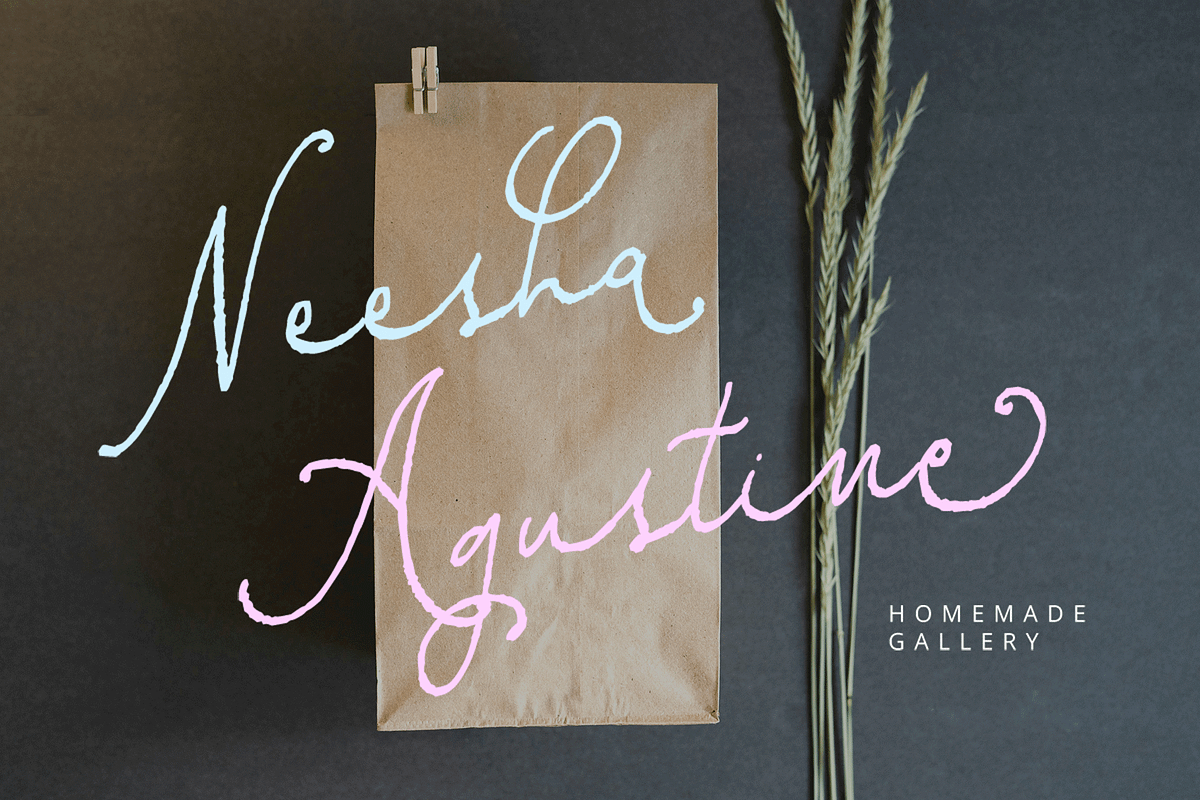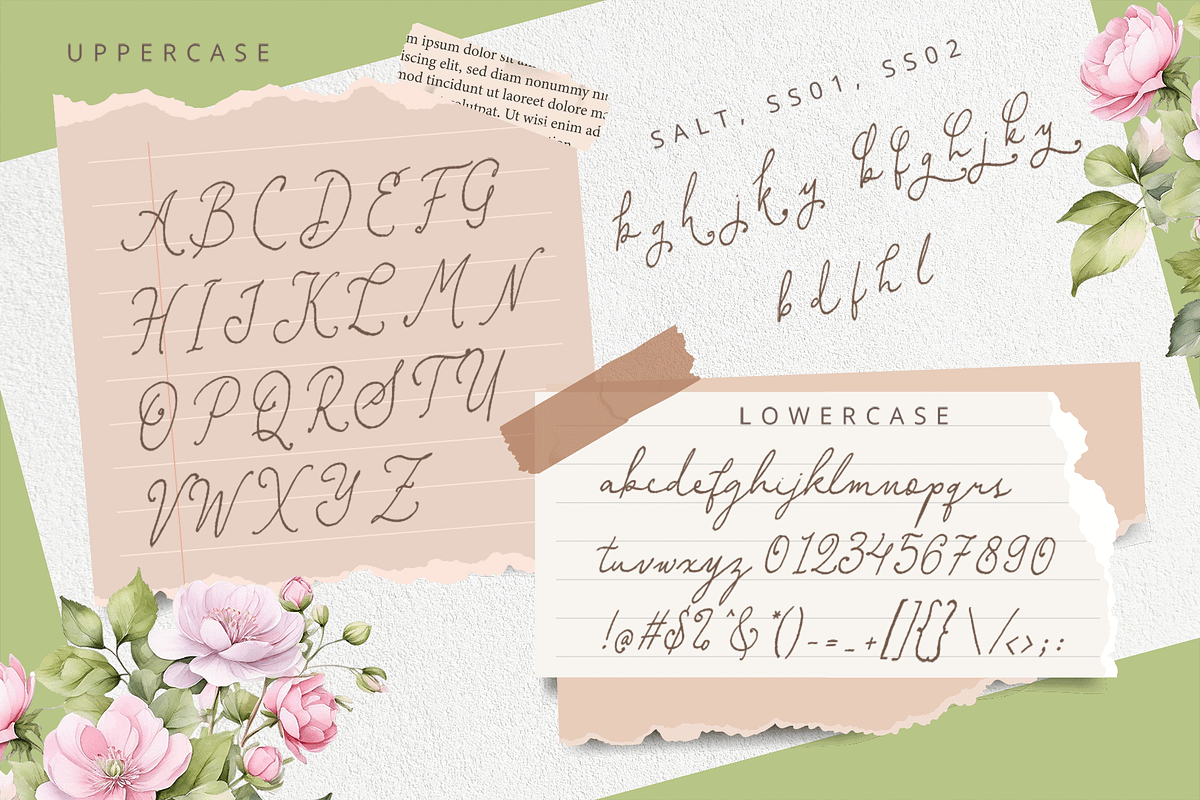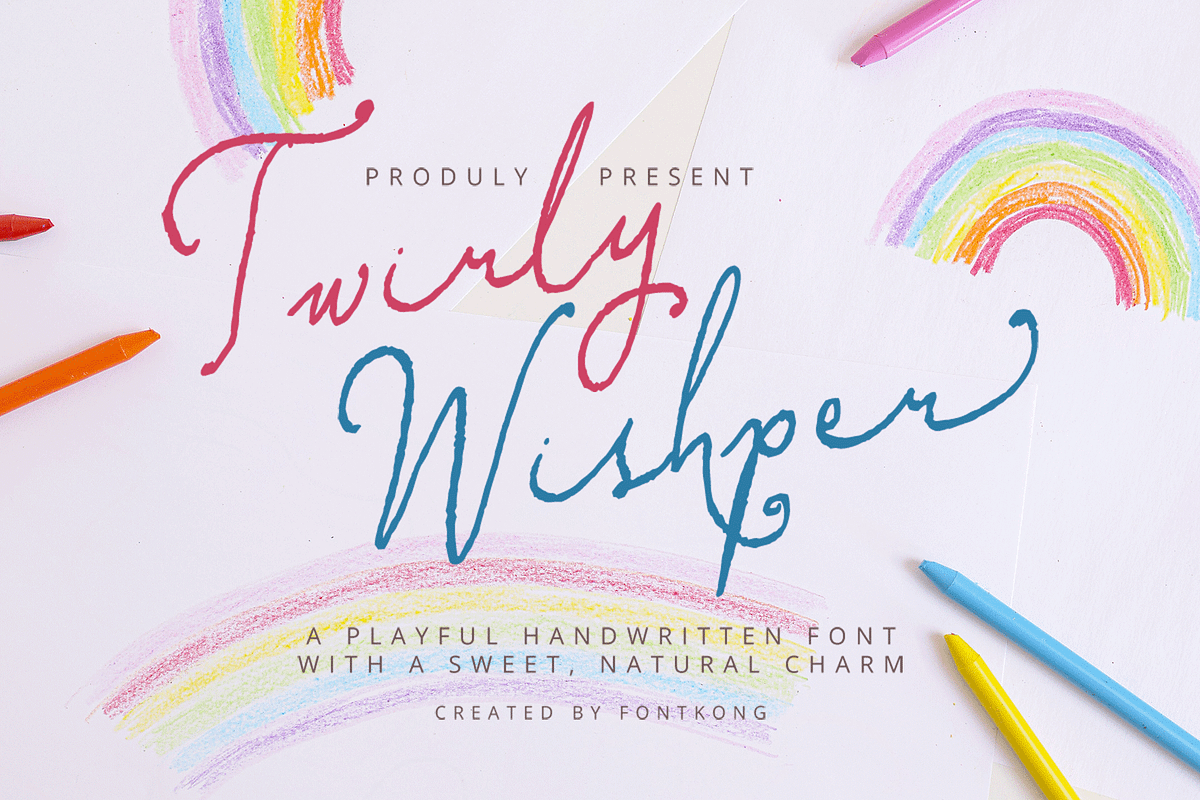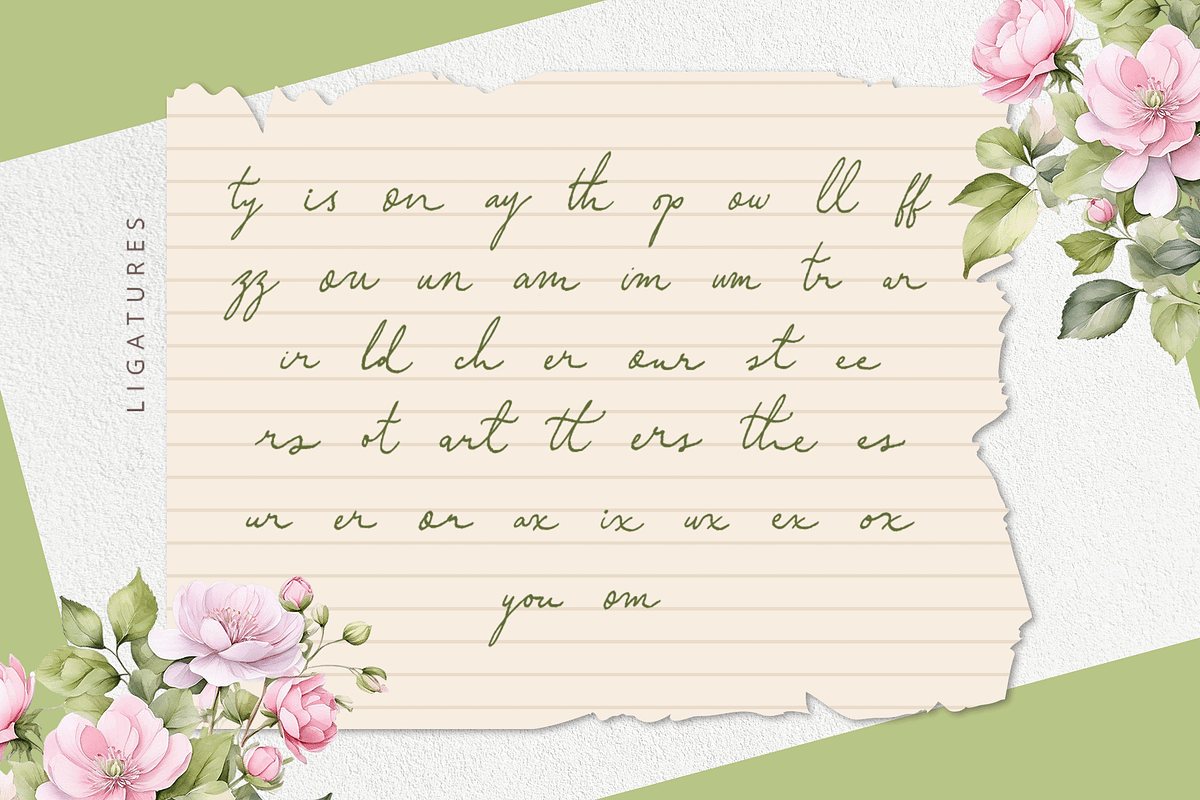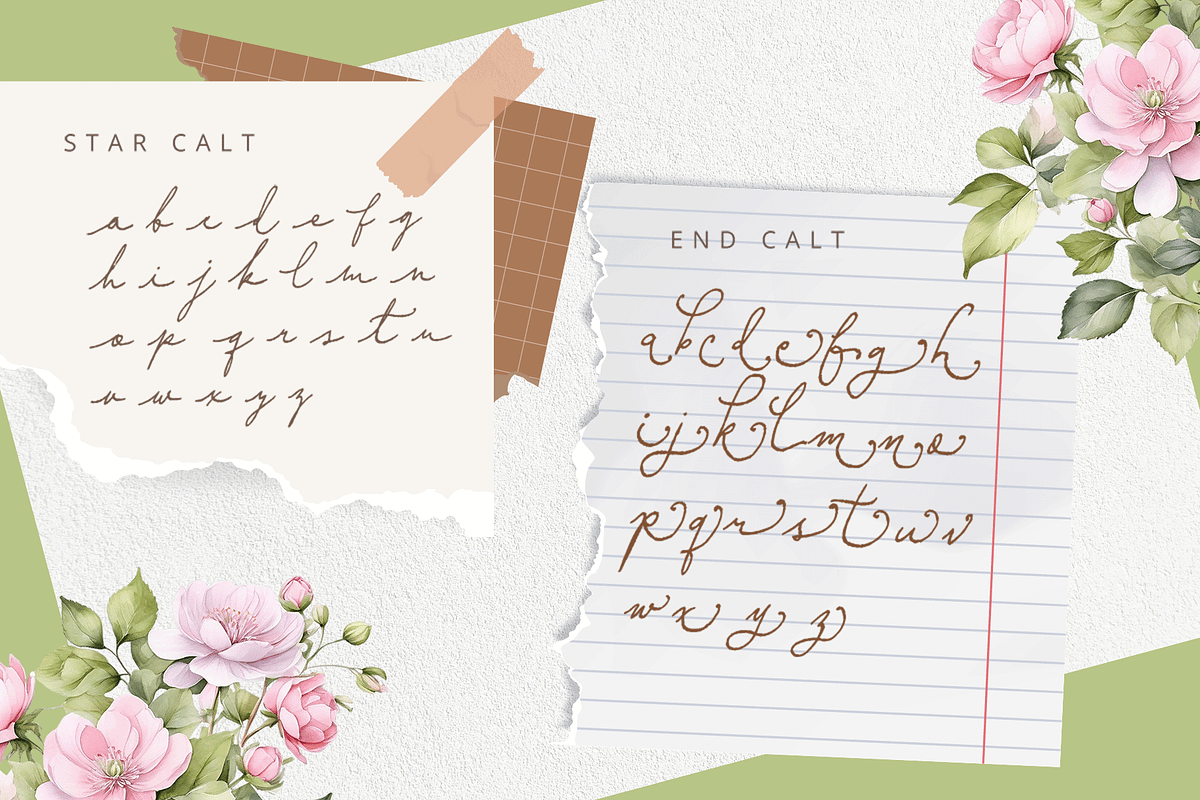
Twirly Whisper – Playful Handwritten
Twirly Whisper – Playful Handwritten Font
Twirly Whisper is a delightful handwritten font full of playfulness and personality. Its swirly strokes and loose, casual feel make it perfect for adding a friendly and inviting touch to your creative projects. Whether you're crafting greeting cards, product packaging, kids' designs, or fun social media posts, this font brings a cheerful and spontaneous energy to every layout.
Designed to look like natural handwriting, Twirly Whisper includes uppercase & lowercase letters, numbers, punctuation, and multilingual support—making it both stylish and versatile.